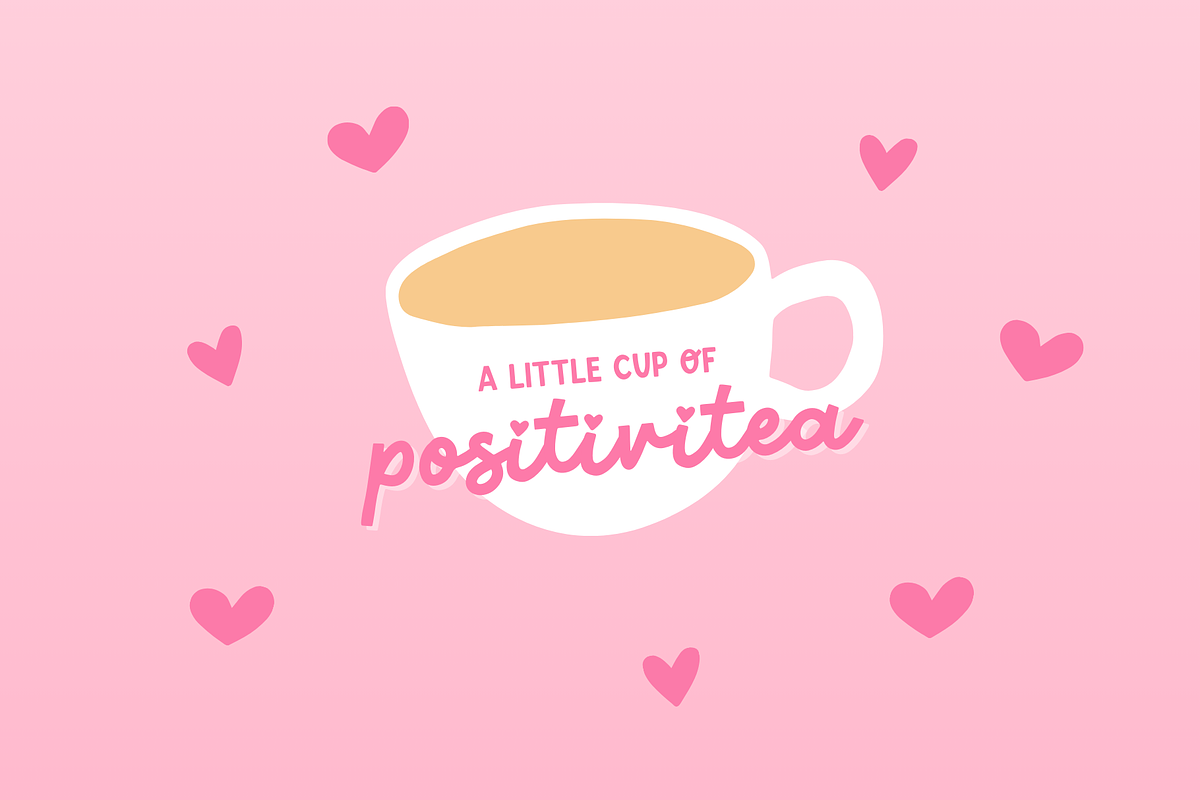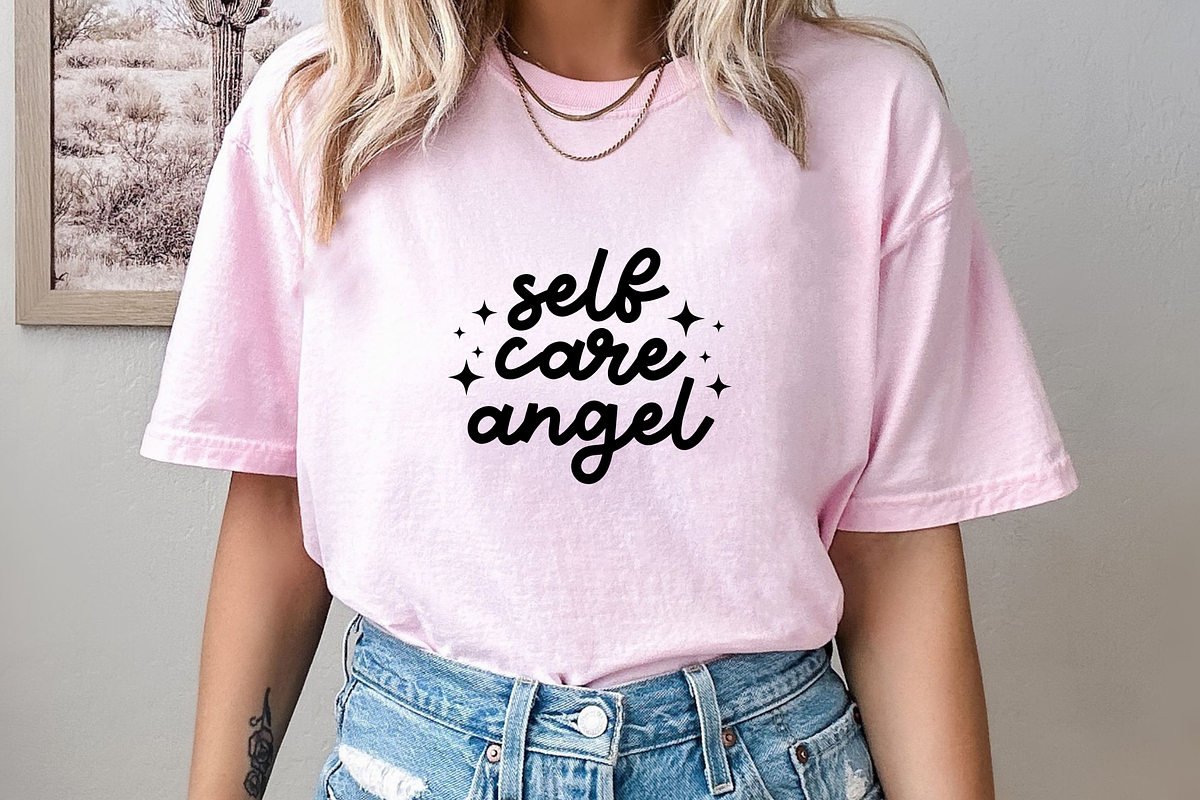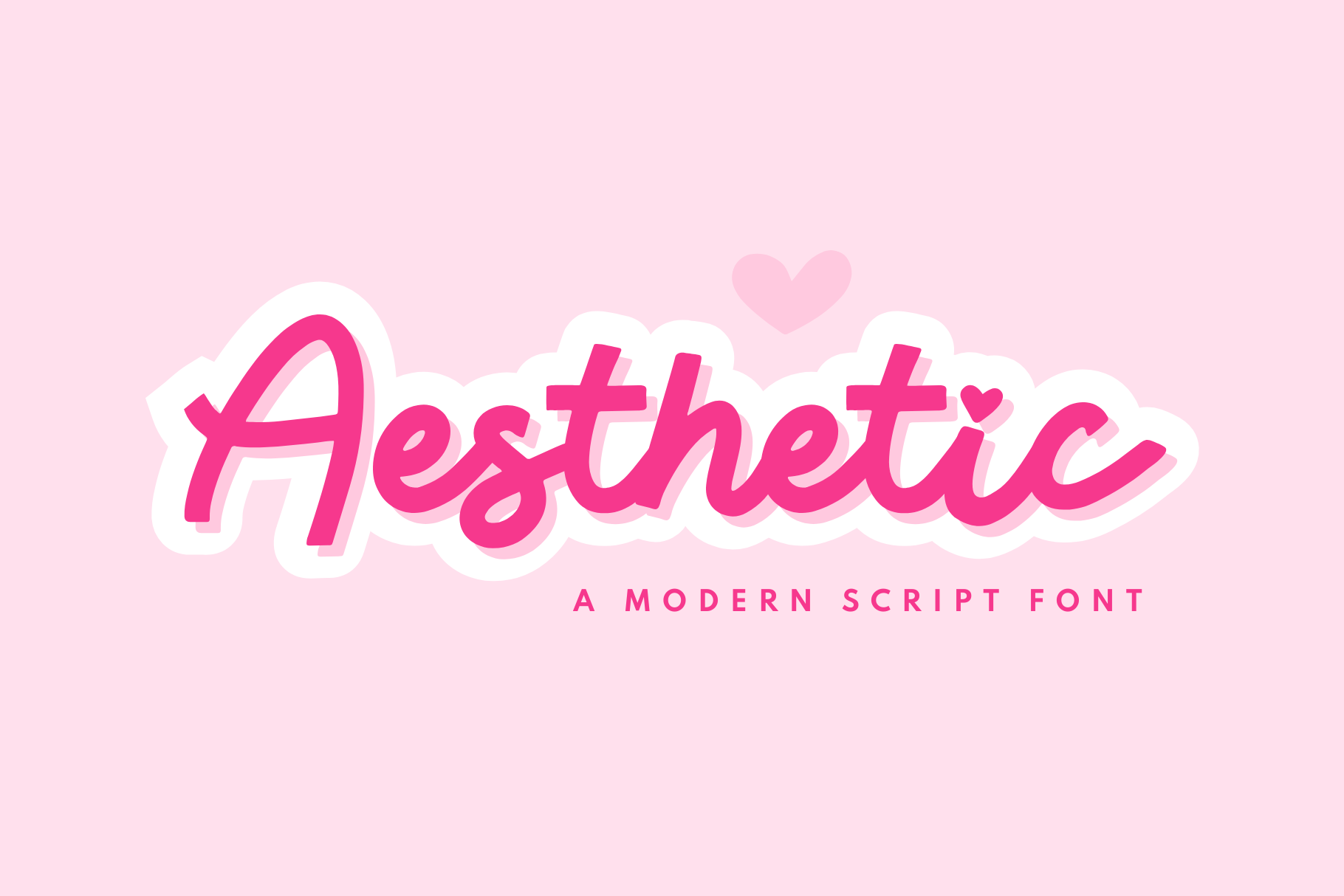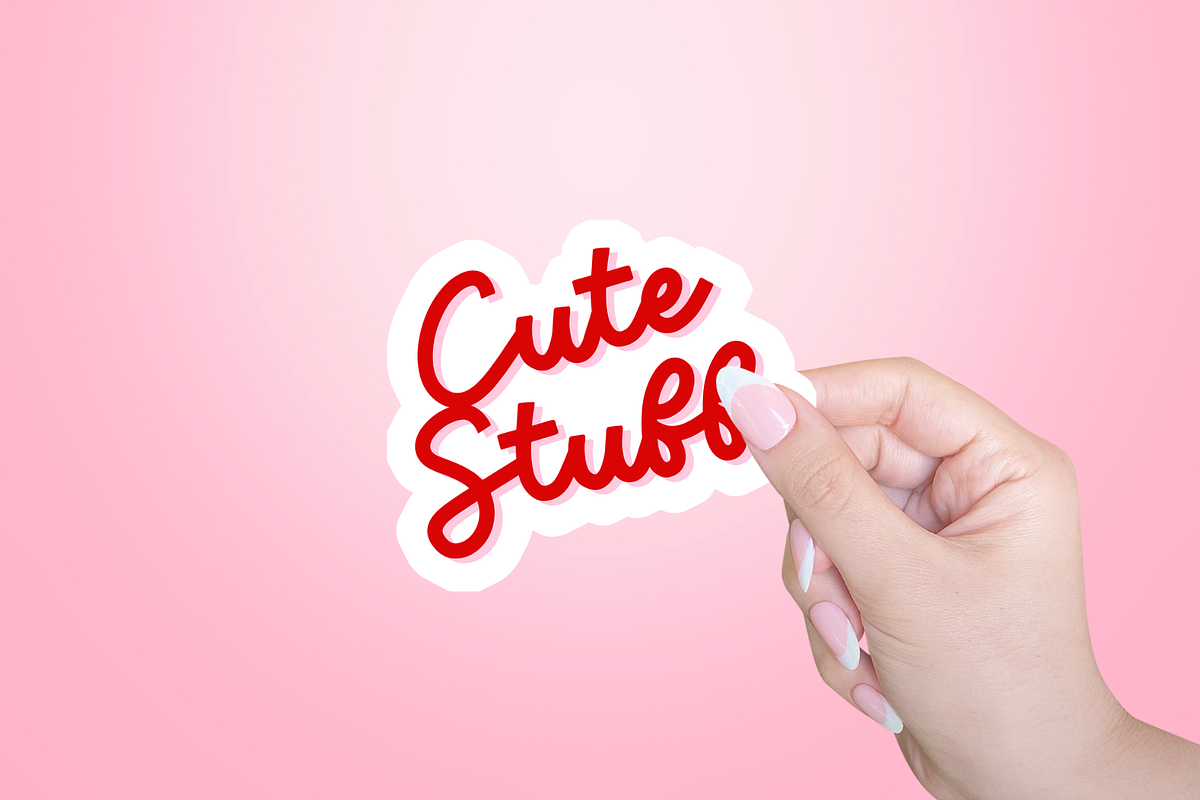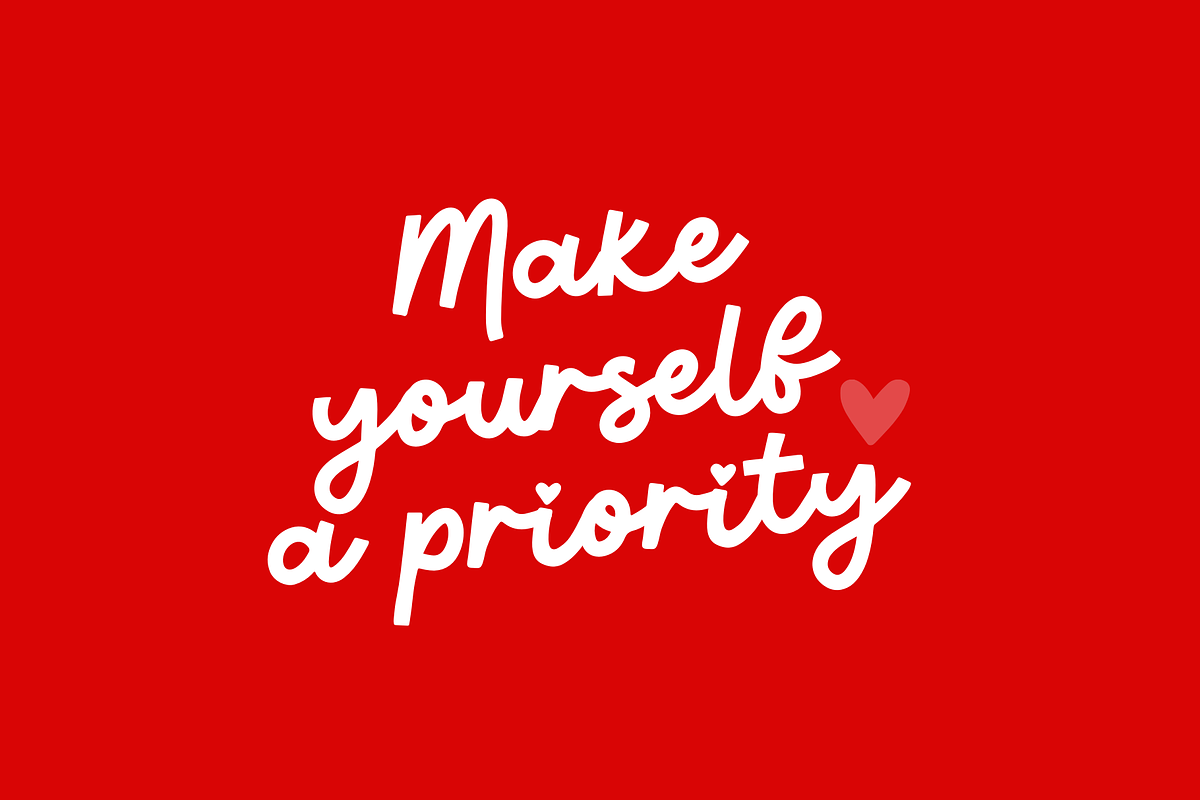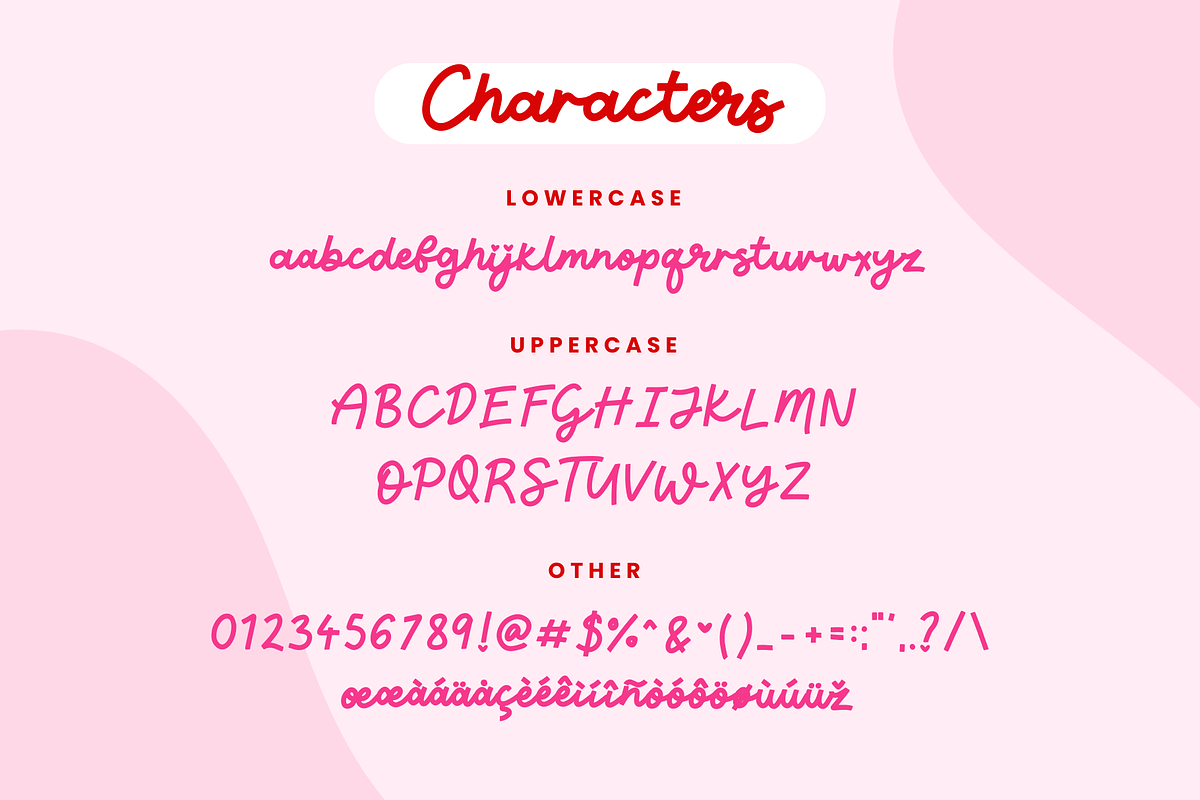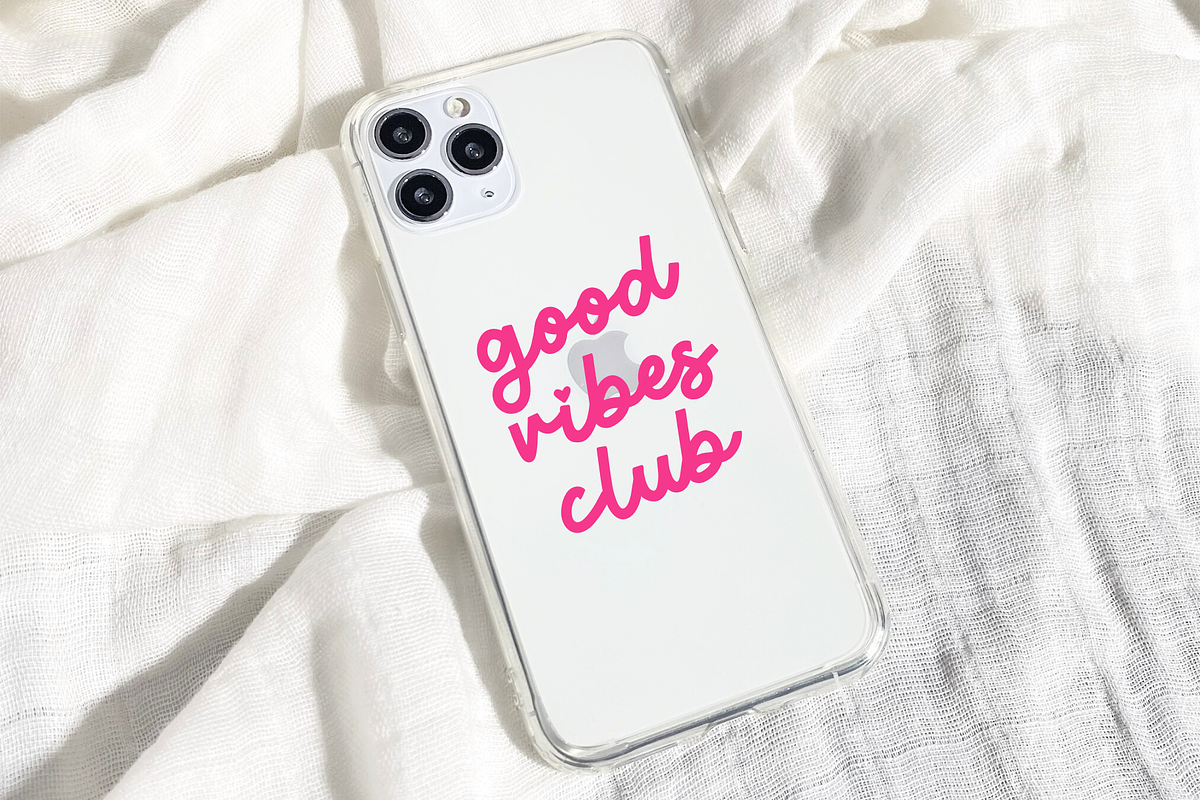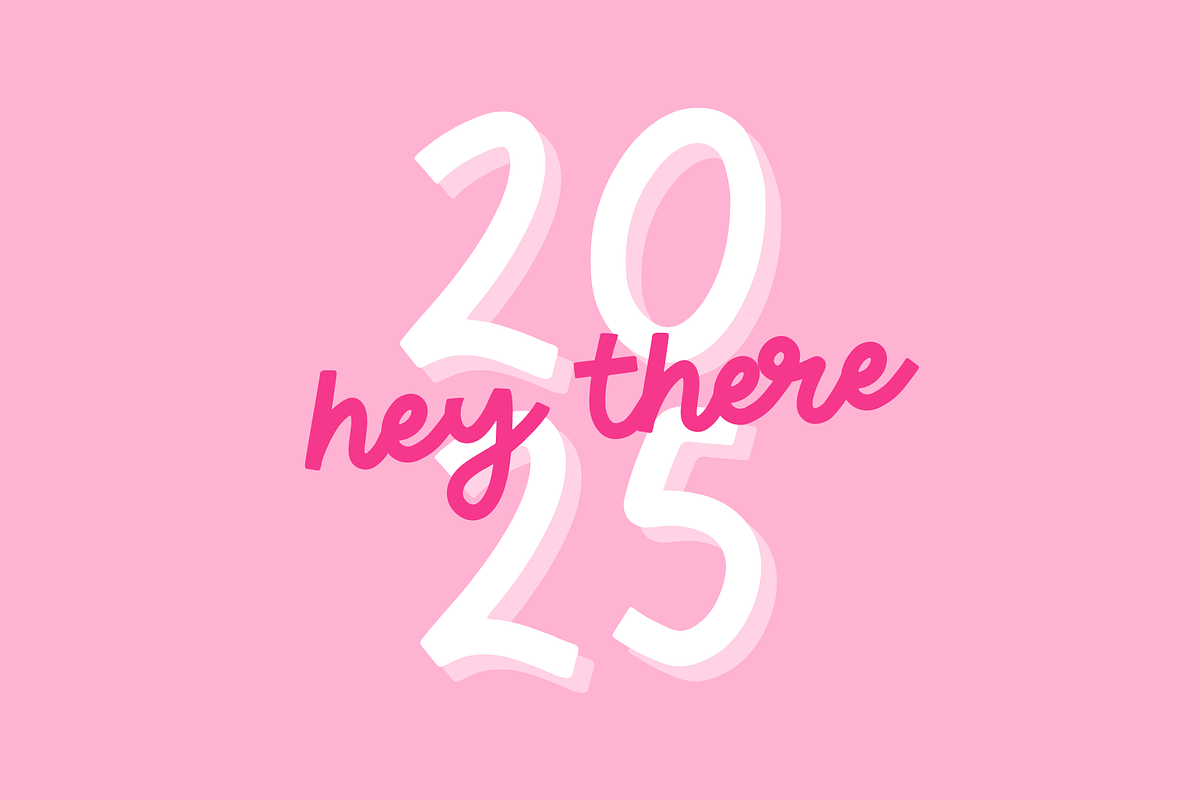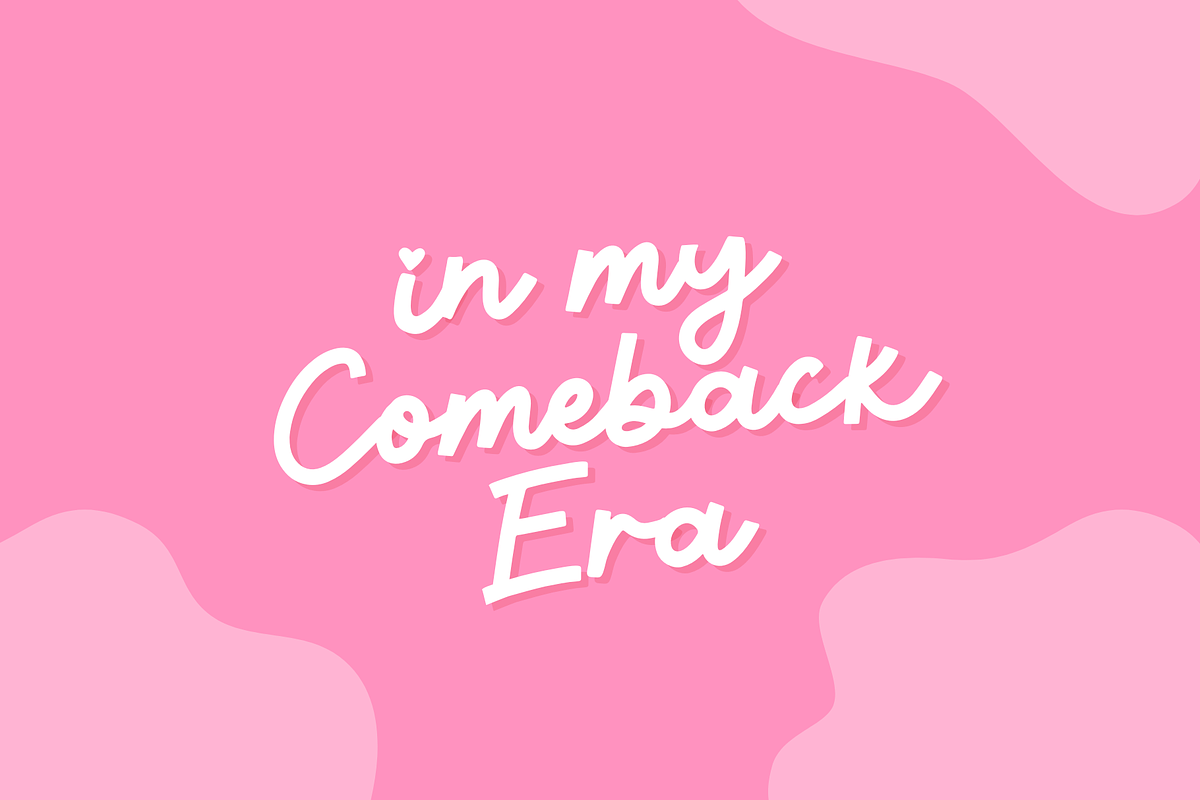
Aesthetic Font
Aesthetic font in a bold cursive design to use in Cricut, Procreate, Canva, iPad and more. This cute font with hearts will work perfectly for lettering quotes, digital designs and craft projects. It's a modern font for apparel, stickers and sublimation. Add the Aesthetic font to your font collection and get creative.